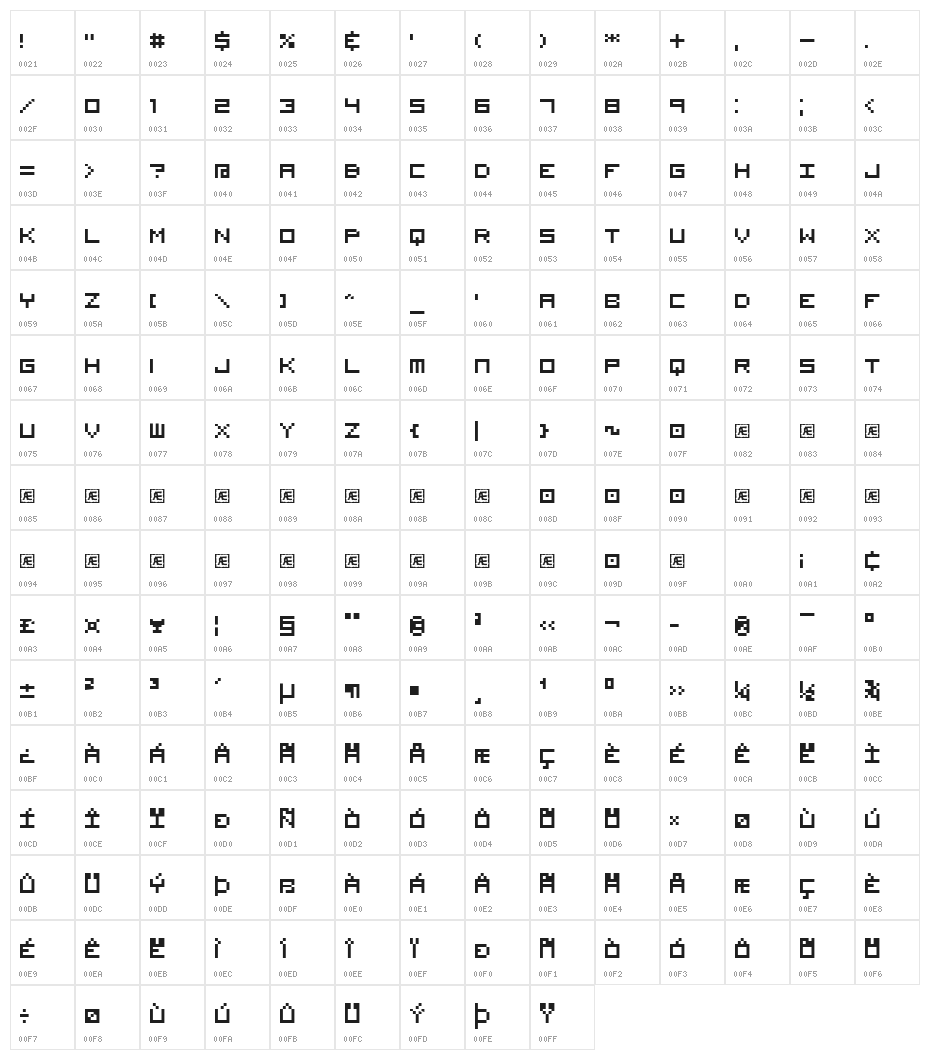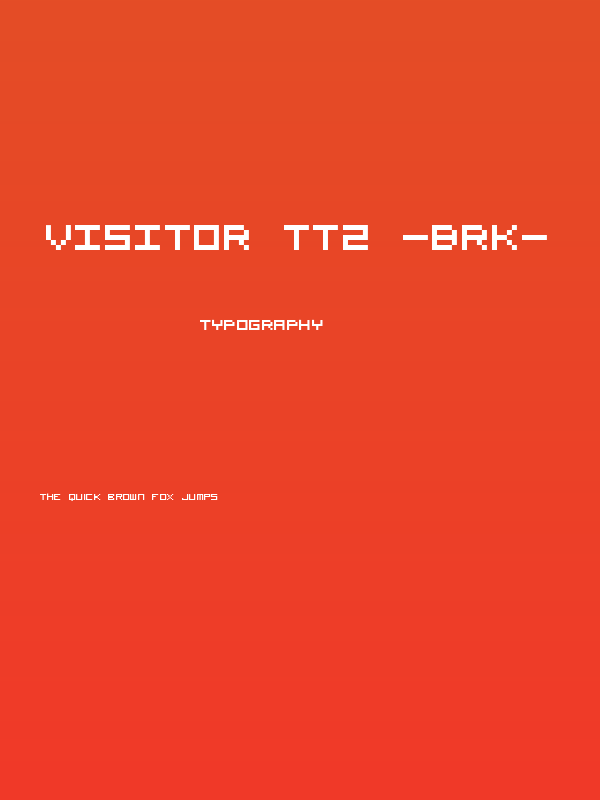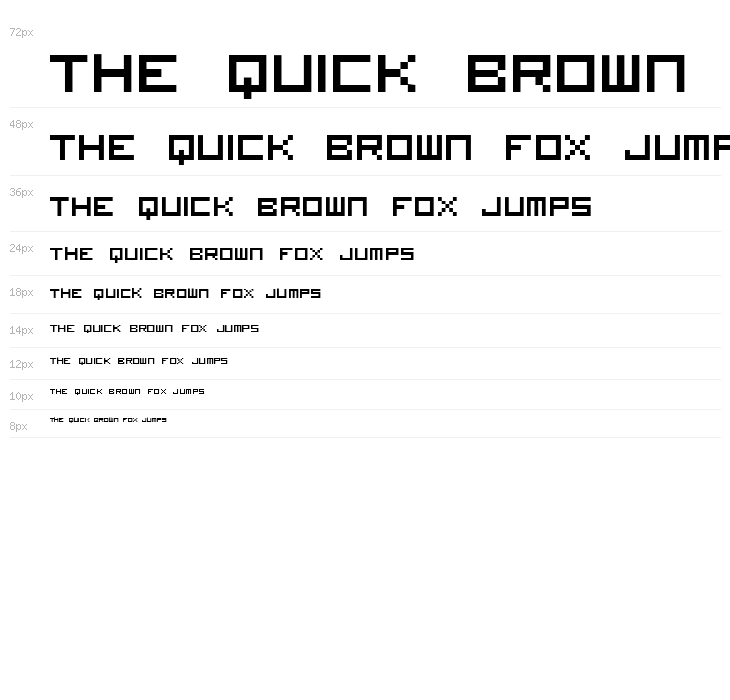
Visitor TT2 -BRK- Font
Visitor TT2 -BRK- Description
This font features a pixelated, blocky design reminiscent of early digital displays and retro video games. Each character is constructed with a grid-like precision, giving it a distinctly digital and geometric appearance. The uniformity in height and width across characters ensures a cohesive and structured look. The font's simplicity and clarity make it highly legible, even at smaller sizes. Its nostalgic style evokes a sense of the 8-bit era, making it ideal for projects that aim to capture a vintage digital aesthetic. The characters are evenly spaced, contributing to its clean and organized presentation.
| Proposed Projects | Ideal for retro video game designs, digital art projects, tech-themed posters, and any creative work that seeks to evoke a nostalgic digital feel. |